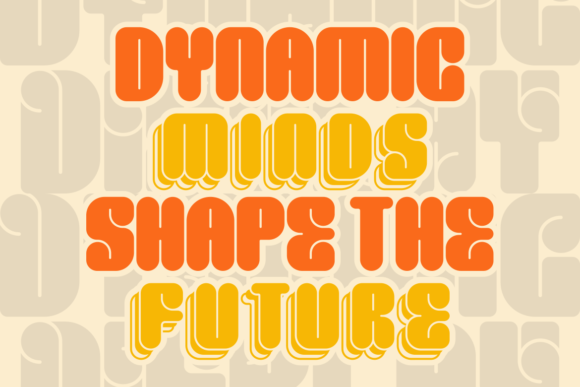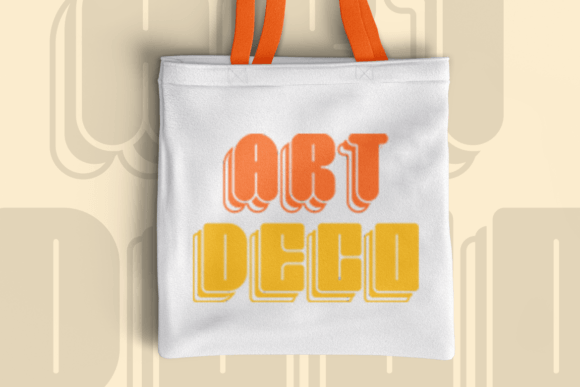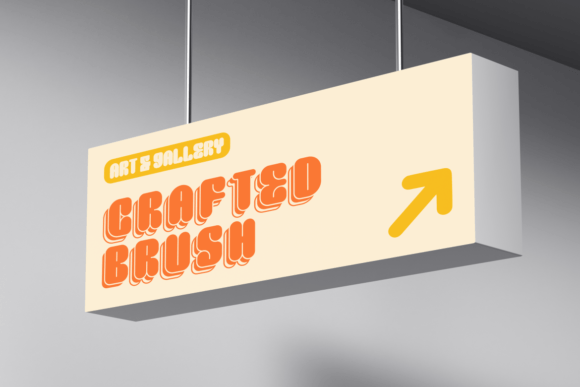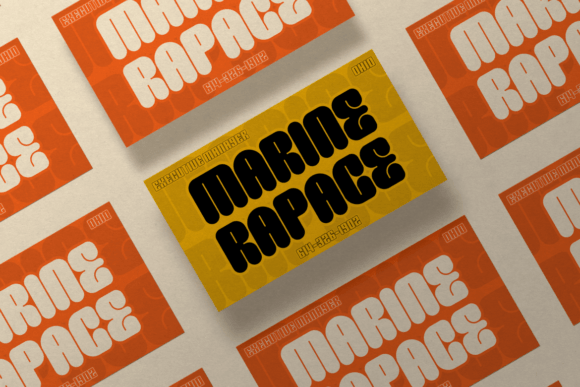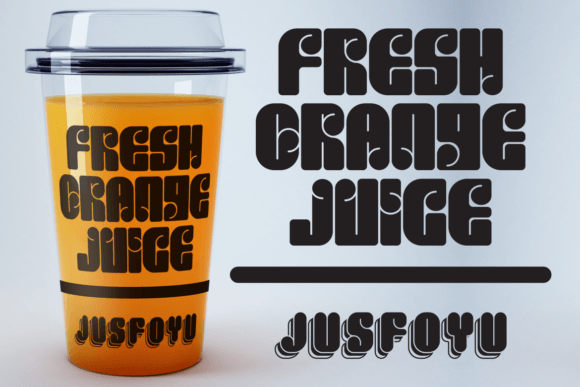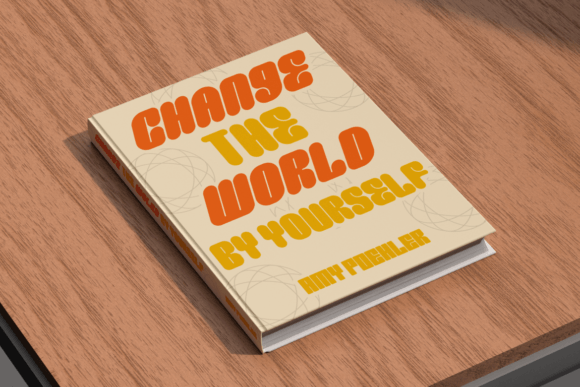
Introducing Dynamic Display – Logo Font: Revolutionizing Typography
In the world of design, typography plays a pivotal role in conveying messages, expressing creativity, and capturing the essence of a brand or project. Among the myriad of fonts available, there’s one that stands out for its uniqueness, versatility, and the ability to bring designs to life: Dynamic Display – Logo Font. This font is not just a typeface; it’s an experience, a statement, and a game-changer in the realm of typography.
The Essence of Dynamic Display
Dynamic Display embodies the spirit of fun and creativity with its psychedelic twist on traditional bold fonts. What sets it apart is its robust and playful character set, meticulously crafted to make an impact at first glance. Each letter boasts unique cut-outs that add depth and movement to your words, making it perfect for designers and crafters looking to inject personality into their brand identity or project titles.
Versatility at Its Core
Crafted with versatility in mind, Dynamic Display is more than just a visually appealing typeface. It offers an impressive 199 glyphs, catering to a wide range of design needs. Whether you’re working on bespoke logos, packaging, poster titles, invitations, greeting cards, stickers, children’s books, or fashioning eye-catching magazine headlines, this font is designed to deliver. Its extensive glyph set ensures that you have the flexibility to experiment and find the perfect fit for your project.
Applications of Dynamic Display
The applications of Dynamic Display are vast and varied. Here are a few ways you can leverage this incredible font:
• Logo Design: Create memorable and impactful logos that stand out.
• Packaging: Spice up your product packaging and make it more appealing.
• Posters and Flyers: Make your poster titles pop off the page and grab attention.
• Invitations and Greeting Cards: Design invitations and greeting cards that are not only beautiful but also tell a story.
• Stickers and Decals: Create vibrant stickers and decals that resonate with energy.
• Children’s Books: Bring stories to life with engaging and playful typography.
• Magazine Headlines: Fashion eye-catching headlines that draw readers in.
Why Choose Dynamic Display?
Choosing Dynamic Display for your typography needs comes with numerous benefits:
• Uniqueness: Stand out from the crowd with a font that is both unique and memorable.
• Versatility: With 199 glyphs at your disposal, find the perfect fit for any project.
• Personality: Infuse your designs with personality and energy.
• Readability: Despite its unique cut-outs, Dynamic Display maintains high readability.
Tips for Using Dynamic Display
To make the most out of Dynamic Display, consider the following tips:
• Experiment with Colors: Play with different colors to enhance the psychedelic effect.
• Mix and Match: Combine Dynamic Display with other fonts for a unique look.
• Adjust Size and Weight: Experiment with different sizes and weights to add depth to your designs.
Dynamic Display – Logo Font is more than just a typeface; it’s a tool for creativity, a means to express your unique style, and a way to bring your designs to life. With its robust character set, extensive glyph offerings, and versatile applications, it’s an invaluable asset for designers and crafters alike. Whether you’re looking to create a lasting impression with your brand identity or add a playful twist to your project titles, Dynamic Display is the ultimate game-changer in typography.